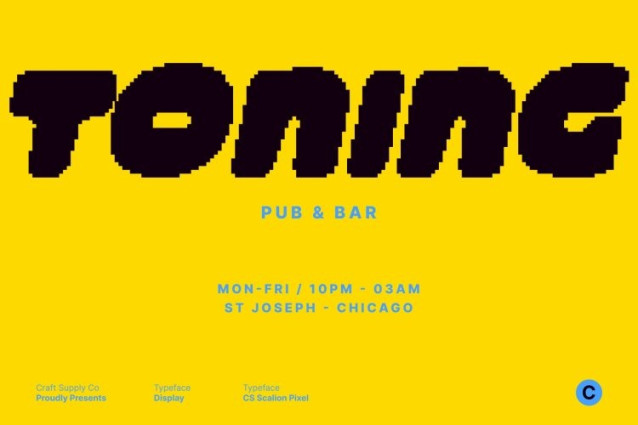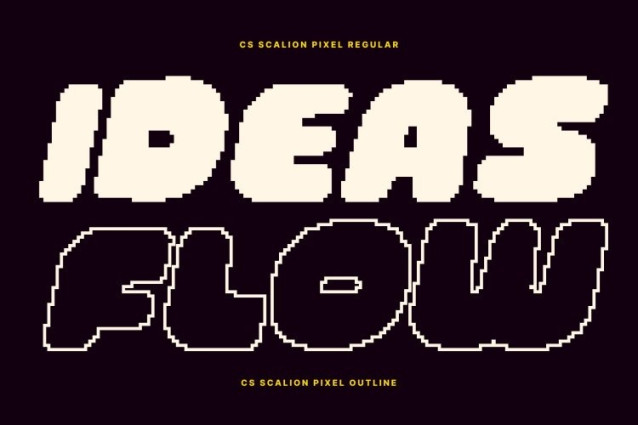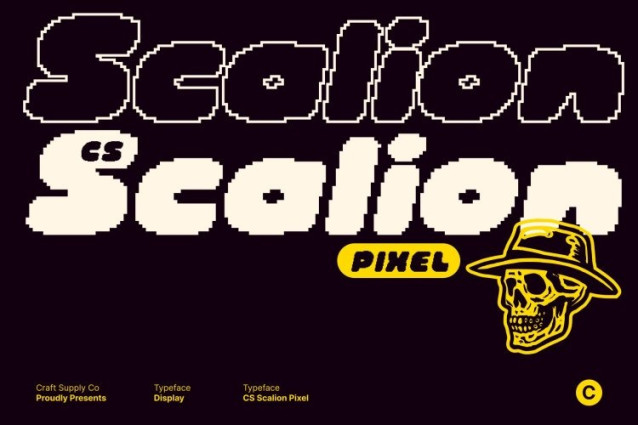
CS Scalion Pixel Font
CS Scalion Pixel Font This is a bold, chunky display font built with solid pixel construction and rounded bubble shapes. Its blocky digital structure delivers strength and high visibility, while the softened corners create a friendly and approachable tone. This balance between sturdy geometry and playful curves makes it both powerful and welcoming.
Playful Bubble Energy in Pixel Style
The bubble-inspired forms are translated into pixel blocks, giving the font a retro digital charm reminiscent of arcade games, early computer graphics, and classic 8-bit visuals. Its fun and relaxed personality shines through every character, making it lively, expressive, and instantly eye-catching on screen.
Perfect for Titles, Logos, and Digital Graphics
Designed for impact, this font excels in headlines, banners, posters, gaming visuals, and bold logo designs. The chunky pixel shapes ensure maximum readability and presence, especially in digital environments where clarity and character are essential.
Vibrant and Eye-Catching in Color
This font pairs beautifully with bright, saturated palettes and high-contrast backgrounds. Neon tones, retro gradients, or playful color schemes amplify its energetic vibe, making it ideal for youthful branding, creative campaigns, tech-inspired designs, and modern retro aesthetics.